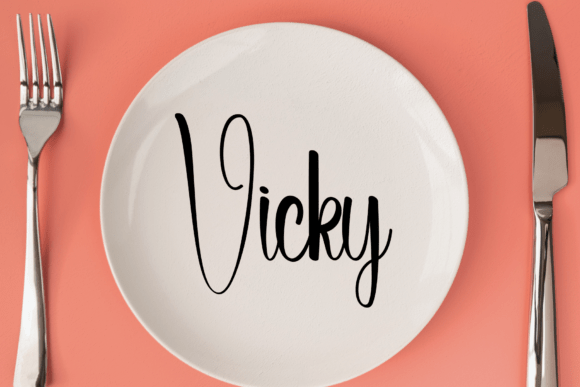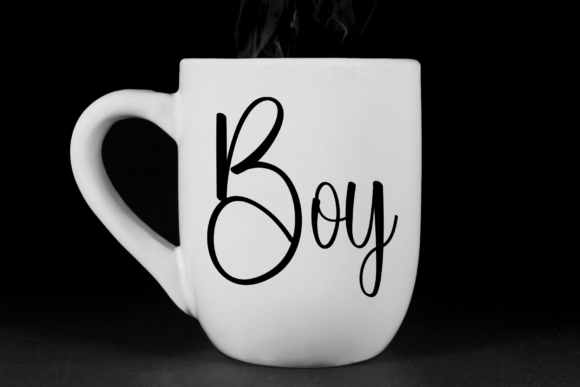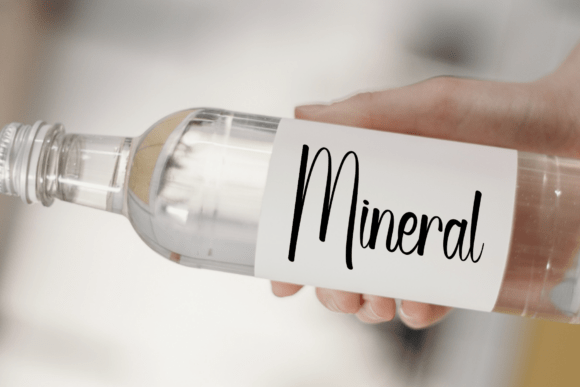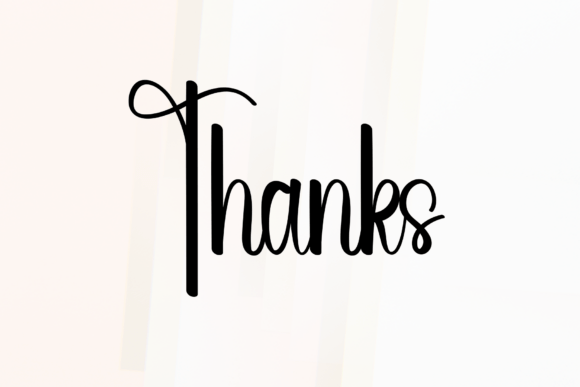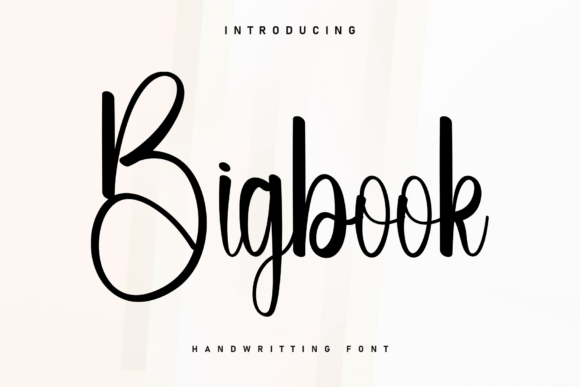
Introducing Bigbook Font: A Sweet and Beautiful Handwritten Delight
Are you a designer or crafter looking for a unique and charming font to add a personal touch to your projects? Look no further than Bigbook Font, a sweet and beautiful handwritten font that’s sure to delight. Featuring characters that dance along the baseline, this font is perfect for adding a cozy accent to any design project you wish to create.
What Makes Bigbook Font So Special?
Bigbook Font is a one-of-a-kind handwritten font that’s been carefully crafted to bring a touch of warmth and personality to your designs. Its unique characteristics include:
• Handwritten charm: Bigbook Font is a genuine handwritten font, complete with subtle imperfections and quirks that give it a personal and human touch.
• Dancing baseline: The characters in Bigbook Font dance along the baseline, creating a sense of movement and energy that’s sure to capture attention.
• Coziness and warmth: This font exudes a sense of coziness and warmth, making it perfect for designs that need to feel inviting and friendly.
Bigbook Font is an ideal choice for designers and crafters who want to add a personal touch to their projects. Whether you’re working on:
• Branding and packaging: Use Bigbook Font to create unique and eye-catching logos, labels, and packaging that stands out from the crowd.
• Stationery and invitations: Add a touch of elegance and sophistication to your stationery and invitations with this beautiful handwritten font.
• Digital and print media: Bigbook Font works beautifully in both digital and print media, making it perfect for use in social media graphics, blogs, and more.
• Crafting and DIY projects: Use Bigbook Font to add a personal touch to your crafting and DIY projects, such as handmade cards, gift tags, and more.
Tips for Using Bigbook Font
Bigbook Font is a sweet and beautiful handwritten font that’s perfect for designers and crafters looking to add a personal touch to their projects. With its unique characteristics, cozy and warm feel, and versatility, this font is sure to become a favorite in your design toolkit. So why wait? Download Bigbook Font today and start creating beautiful, one-of-a-kind designs that capture the hearts of your audience.
• Handwritten font with a sweet and beautiful style
• Characters dance along the baseline
• Coziness and warmth
• Perfect for branding, packaging, stationery, and more
• Works beautifully in digital and print media
Whether you’re a seasoned designer or a crafter looking for a unique font to add to your collection, Bigbook Font is sure to delight. So why not give it a try today and see the difference it can make in your designs?